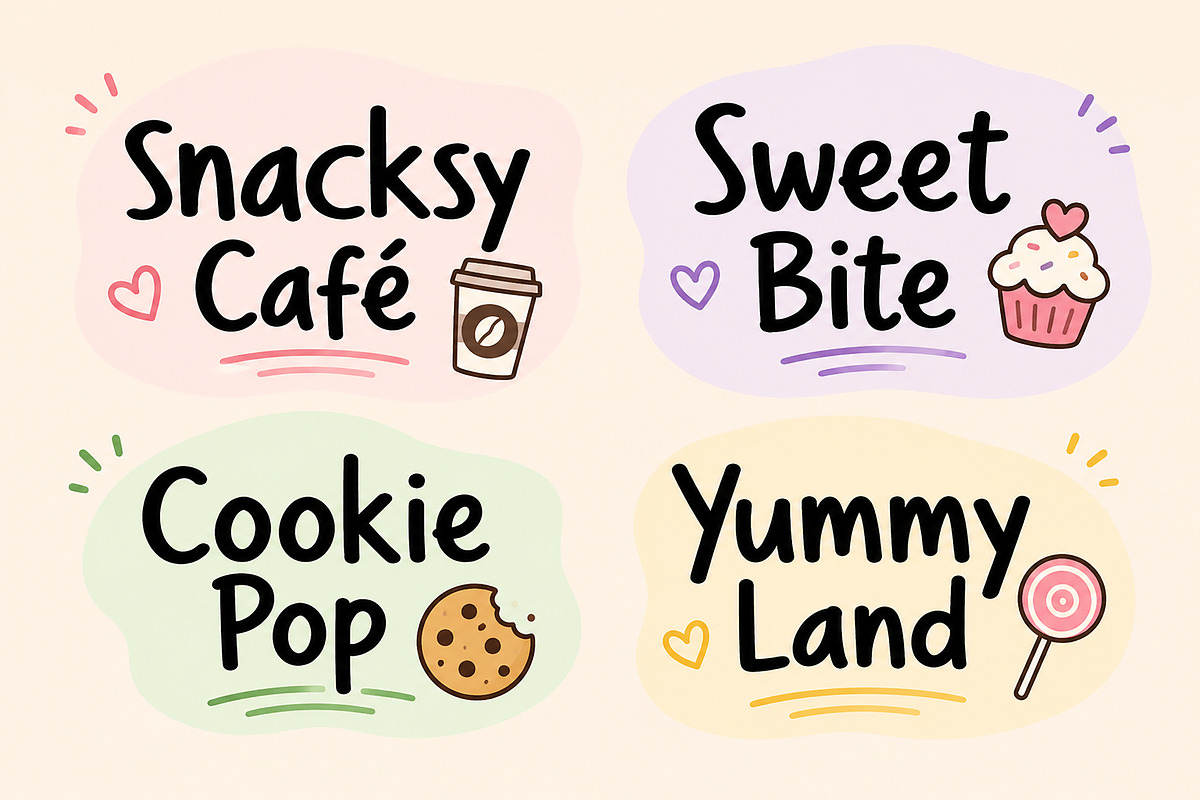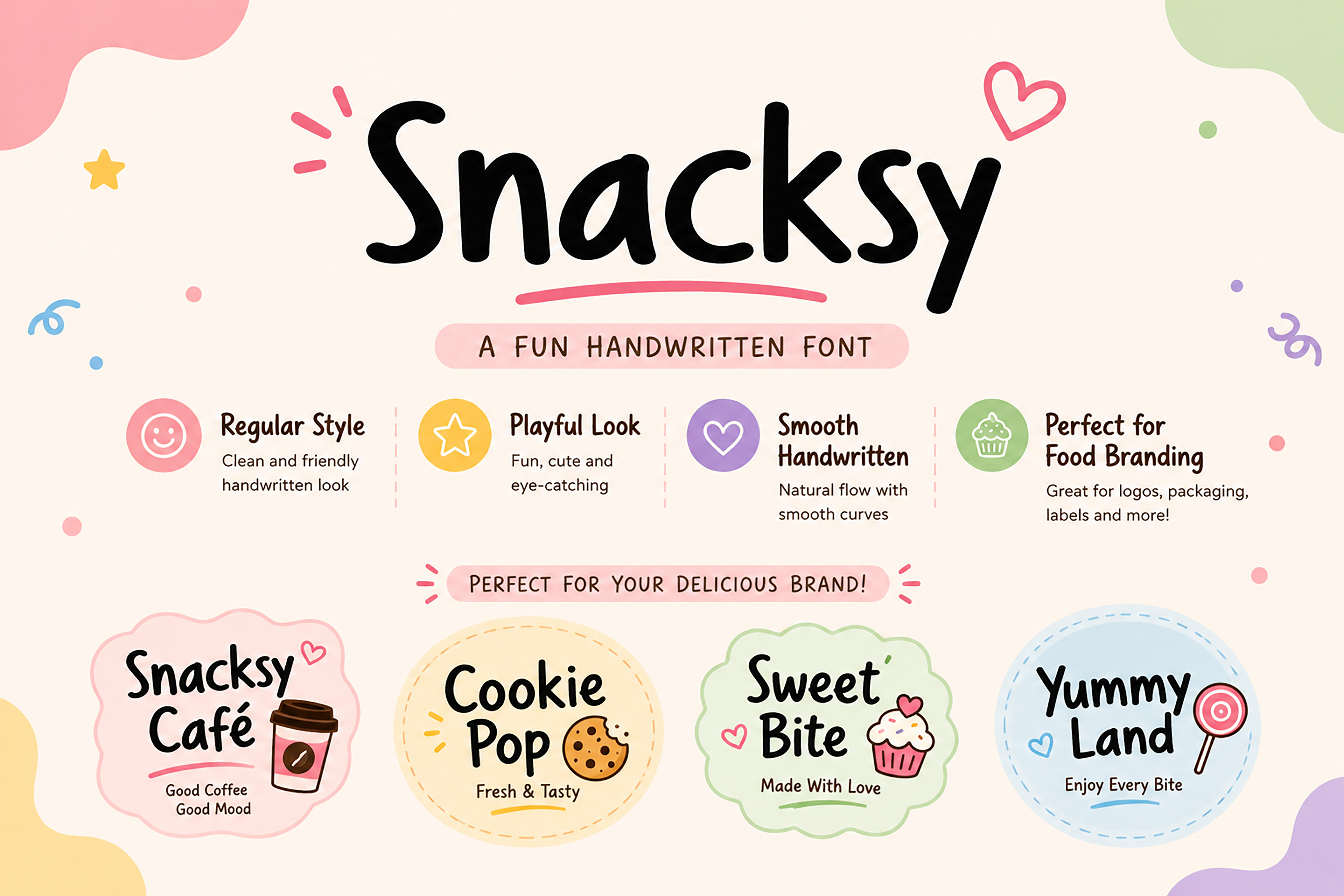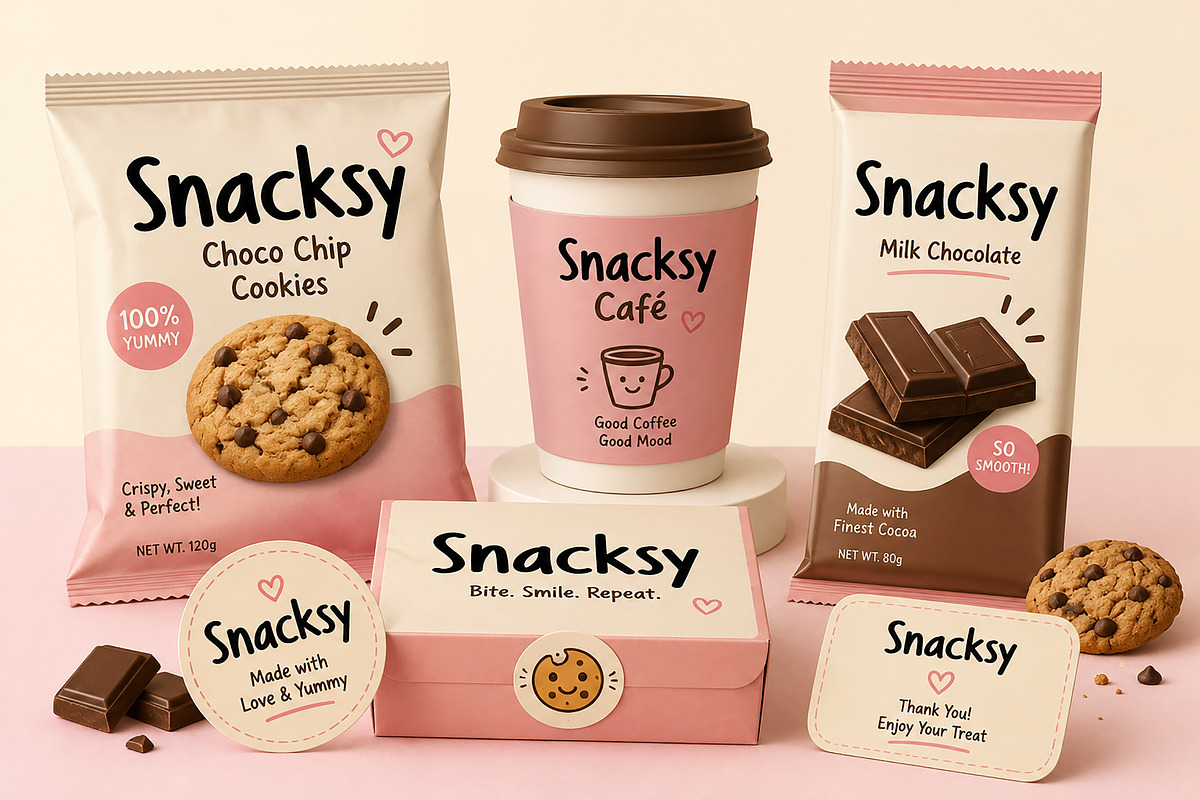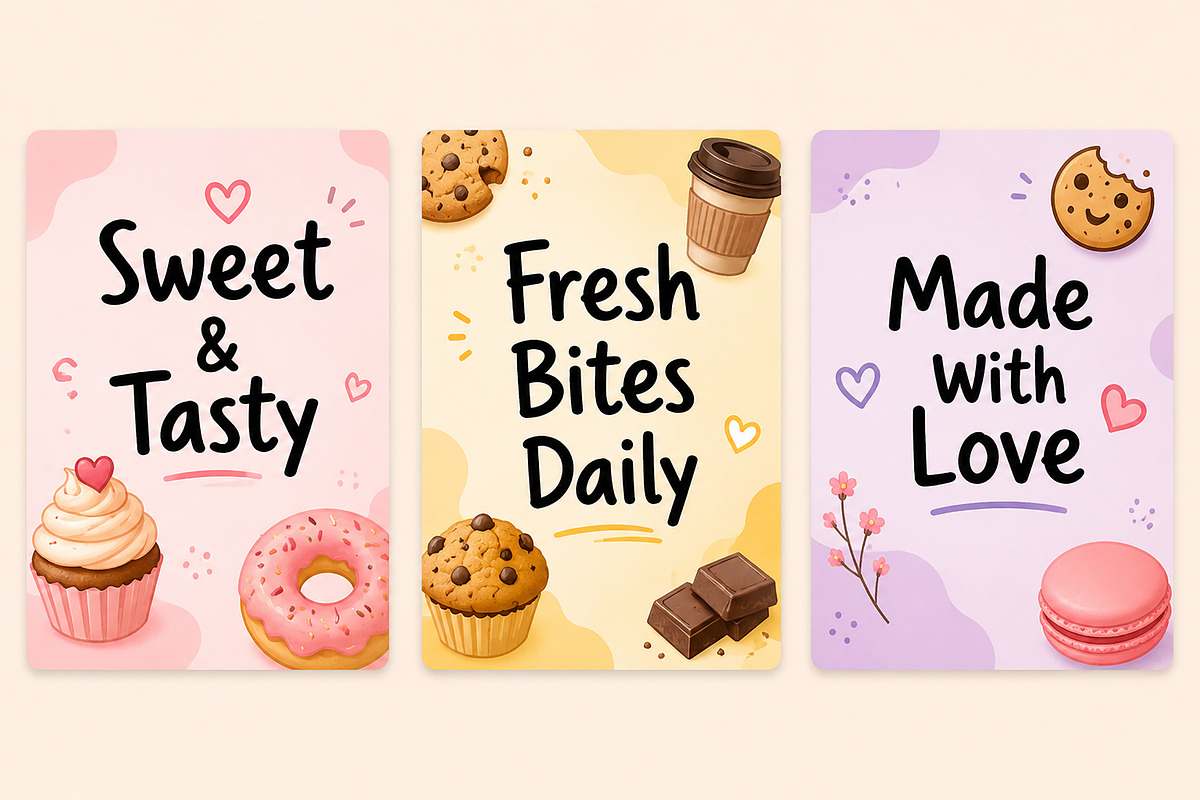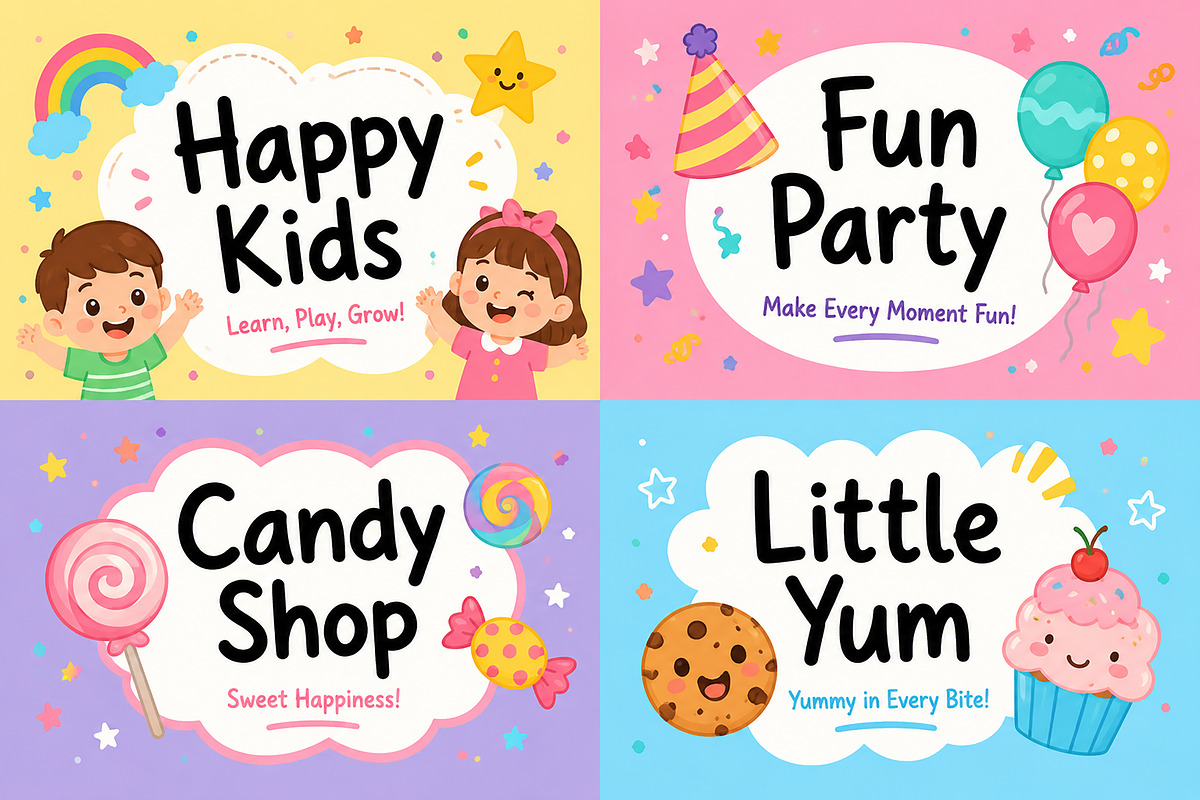
Snacksy – Playful Handwritten Font
Snacksy – Cute Playful Handwritten Font
Bring warmth and personality to your designs with Snacksy, a cute playful handwritten font designed for food branding, kids' products, packaging, social media, and creative projects. Its smooth handwritten style creates a friendly, fun, and approachable look, making it perfect for logos, labels, café branding, bakery packaging, stickers, and more.
Whether you're designing a cookie package, coffee cup, candy label, or Instagram post, Snacksy adds a delightful handmade touch that instantly grabs attention.
Snacksy is a cheerful handwritten display font with a natural, smooth, and playful appearance. Carefully crafted to feel friendly and authentic, it works beautifully across both print and digital projects.
Its rounded letterforms and casual handwritten style make it an excellent choice for food-related branding, children's products, cafés, bakeries, snack packaging, and social media graphics.
Perfect for creating:
Food & snack branding
Bakery and café logos
Cookie & chocolate packaging
Product labels & stickers
Coffee cup branding
Kids' brands
Restaurant menus
Social media posts
YouTube thumbnails
Greeting cards
Posters
Invitations
DIY craft projects
Packaging design
Cute handwritten display font
Smooth and natural letterforms
Friendly and playful style
Easy to read
Perfect for food branding
Great for logos and packaging
Works for print and digital use